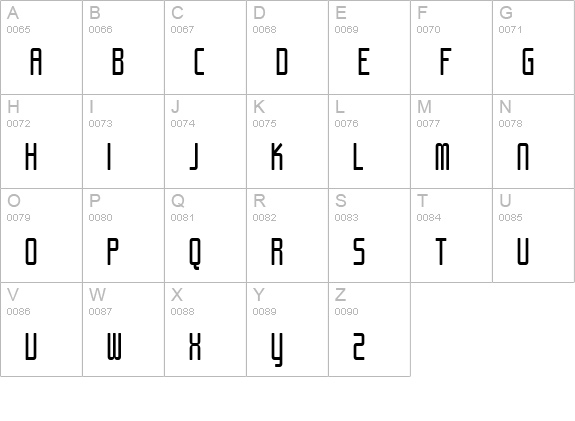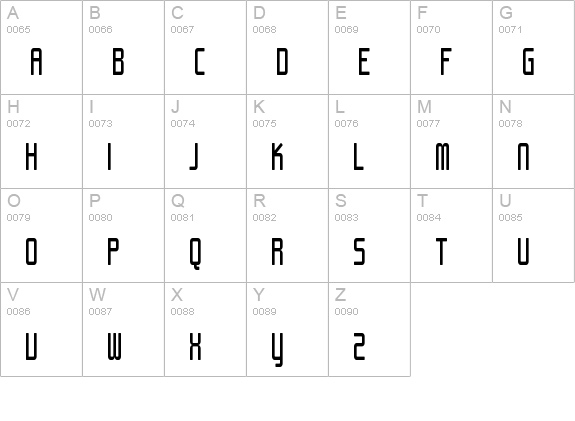
SF Chrome Fenders Condensed Font Details
SF Chrome Fenders Condensed is a distinctive, condensed-width variant in the SF typeface family \xE2\x80\x94 well suited to design and typography projects.
SF Chrome Fenders Condensed font is a sleek and stylish typeface that exudes a modern and futuristic vibe. This condensed font is perfect for adding a touch of sophistication to any design project, whether it be for branding, advertising, or web design. The SF Chrome Fenders Condensed font features clean lines and sharp edges, giving it a distinct and contemporary look. Its condensed nature allows for more text to be displayed in a limited space, making it highly versatile and suitable for various applications. One of the standout features of SF Chrome Fenders Condensed font is that it is completely free to download. This means that you can enhance your designs without having to worry about any additional costs. It is freely available to download at FontsMarket.com, making it easily accessible to designers and creatives alike. With SF Chrome Fenders Condensed font, you can create eye-catching headlines, captivating logos, and compelling typography that will leave a lasting impression on your audience. Its sleek and futuristic design will make your designs stand out from the crowd, giving them a professional and polished finish. Whether you are a professional designer or a hobbyist, SF Chrome Fenders Condensed font is a valuable addition to your font library. Its versatility, modern aesthetic, and the fact that it is freely available to download make it a must-have for any design project. So why wait? Download SF Chrome Fenders Condensed font today and unleash your creativity!